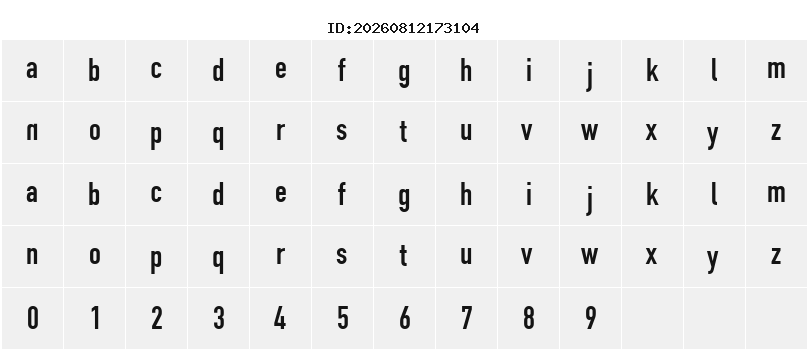
Reznor Preview
• Font Name: Reznor
• Font Style: Downward Spiral
• Copyright: This font is an enterpretation of the font used on the cover of the nine inch nails CD "The Downward Spiural." All hail Trent Reznor.
About Reznor.ttf
Reznor.ttf is a modern, elegant sans-serif font designed for ultimate readability and visual harmony. Perfect for branding, headlines, web design, and print materials.